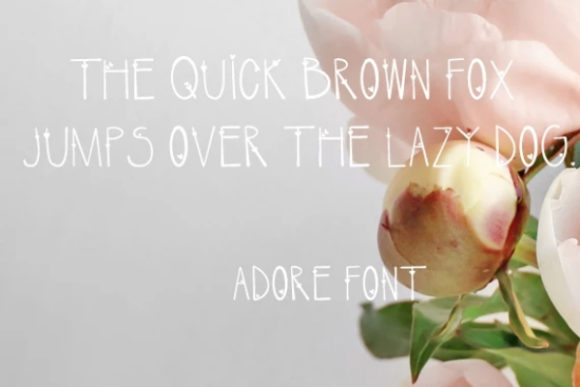
Introducing Adore Font: Elevate Your Design with Elegance and Versatility
In the world of typography, fonts play a crucial role in conveying messages, setting tones, and creating visual identities. For designers and crafters seeking a unique yet timeless look, the Adore Font stands out as an exceptional choice. This article delves into the characteristics, benefits, and applications of the Adore Font, exploring how it can enhance your design projects with its distinct elegance and versatility.
The Essence of Adore Font
Adore is a distinct, elegant sans serif font that masterfully blends traditional influences into a contemporary aesthetic. Its well-balanced Latin details contain distinctive contrasts, making it a standout in the realm of modern typography. The font’s design is characterized by its clean lines, subtle nuances, and a harmonious balance that appeals to both classic and modern tastes.
Key Features of Adore Font
- Elegant Sans Serif Design: Adore’s sans serif design lends it a clean and modern appearance, making it suitable for a wide range of applications, from digital platforms to print materials.
- Traditional Influences: Despite its modern look, Adore incorporates traditional typographic elements, providing it with a timeless quality that can enhance the sophistication of any design.
- Distinctive Contrasts: The font’s Latin details exhibit well-defined contrasts, adding depth and character to the text. This feature is particularly beneficial for headlines, titles, and any text that needs to stand out.
- Versatility: Adore’s design is highly versatile, making it suitable for various design projects, including branding, advertising, web design, and more.
Applications of Adore Font
The Adore Font’s unique blend of elegance and modernity makes it an excellent choice for a variety of design applications. Here are some of the key areas where Adore can make a significant impact:
- Branding and Logo Design: Use Adore to create a sophisticated brand identity that stands out from the competition. Its elegant appearance can help convey a sense of luxury, quality, and professionalism.
- Web Design: Adore’s clean and readable design makes it perfect for web content. It can be used for headings, titles, and even body text to create a cohesive and visually appealing website.
- Print Materials: Whether you’re designing business cards, brochures, or posters, Adore can add a touch of elegance and sophistication to your print materials.
- Advertising: For advertisements that need to make a lasting impression, Adore’s distinctive contrasts and elegant appearance can help grab attention and convey your message effectively.
Tips for Using Adore Font
To maximize the potential of Adore Font in your designs, consider the following tips:
- Pair with Complementary Fonts: Adore works well when paired with other fonts that complement its elegant and modern characteristics. Experiment with different font combinations to find the perfect match for your design.
- Adjust Font Sizes: Take advantage of Adore’s versatility by using different font sizes to create visual hierarchy and emphasis in your designs.
- Experiment with Colors: Adore’s clean design allows it to work well with a variety of colors. Don’t be afraid to experiment with different color schemes to find the one that best suits your design.
The Adore Font is a remarkable addition to any designer’s toolkit, offering a unique blend of elegance, versatility, and modernity. Its distinctive sans serif design, traditional influences, and well-balanced Latin details make it an excellent choice for a wide range of design applications. By incorporating Adore into your projects, you can achieve an exquisite yet subtle look that elevates your designs to new heights. Whether you’re a professional designer or a crafty enthusiast, Adore Font is sure to inspire and enhance your creative endeavors.